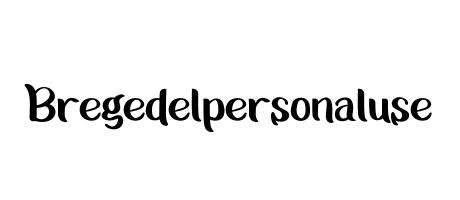
Bregedelpersonaluse
Bregedelpersonaluse, a whimsical script font, dances across the page with playful curves and elegant flourishes. Its slightly irregular letterforms evoke a hand-drawn quality, lending a touch of charming imperfection to any design. Ideal for invitations, logos, or anything needing a touch of personalized flair.